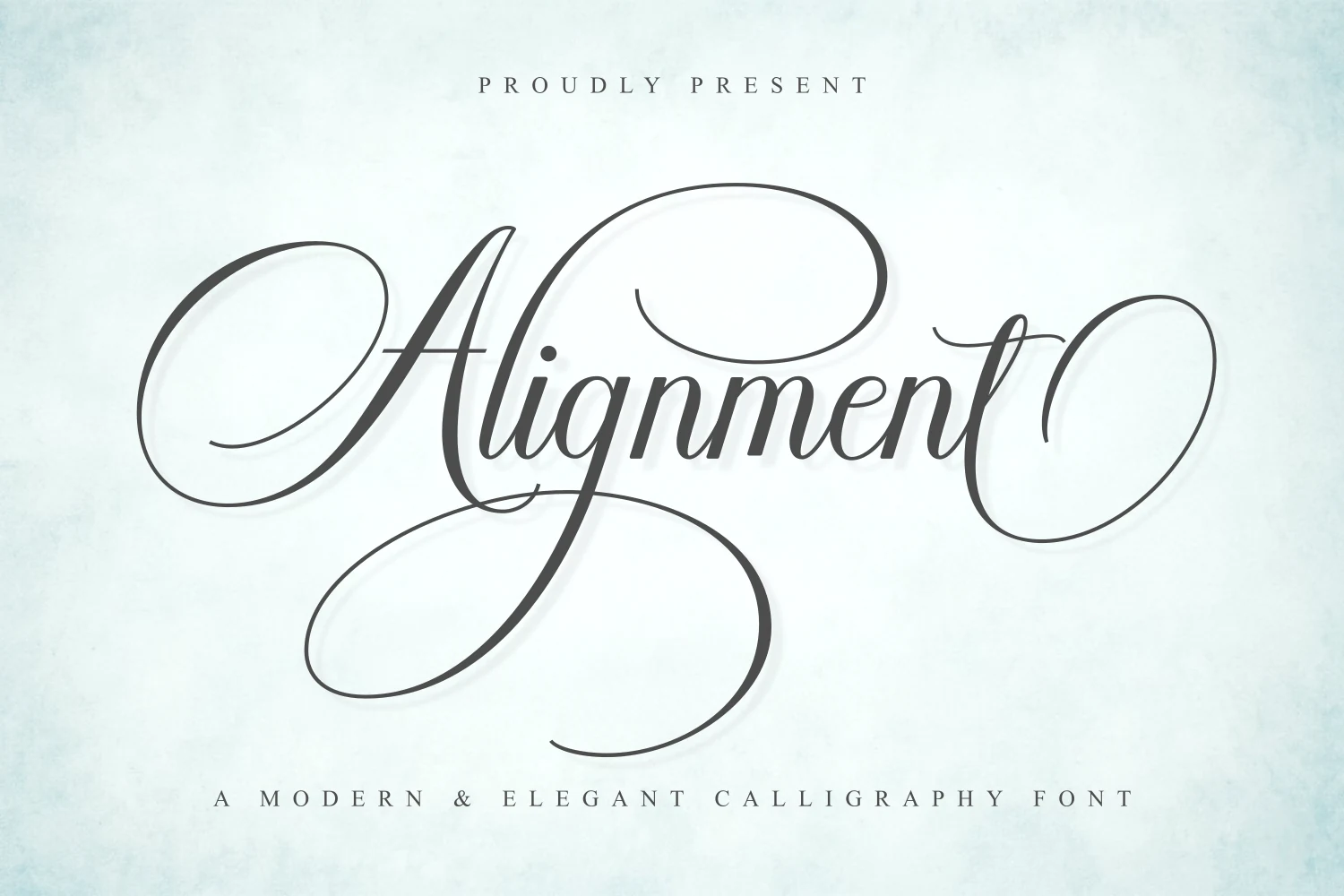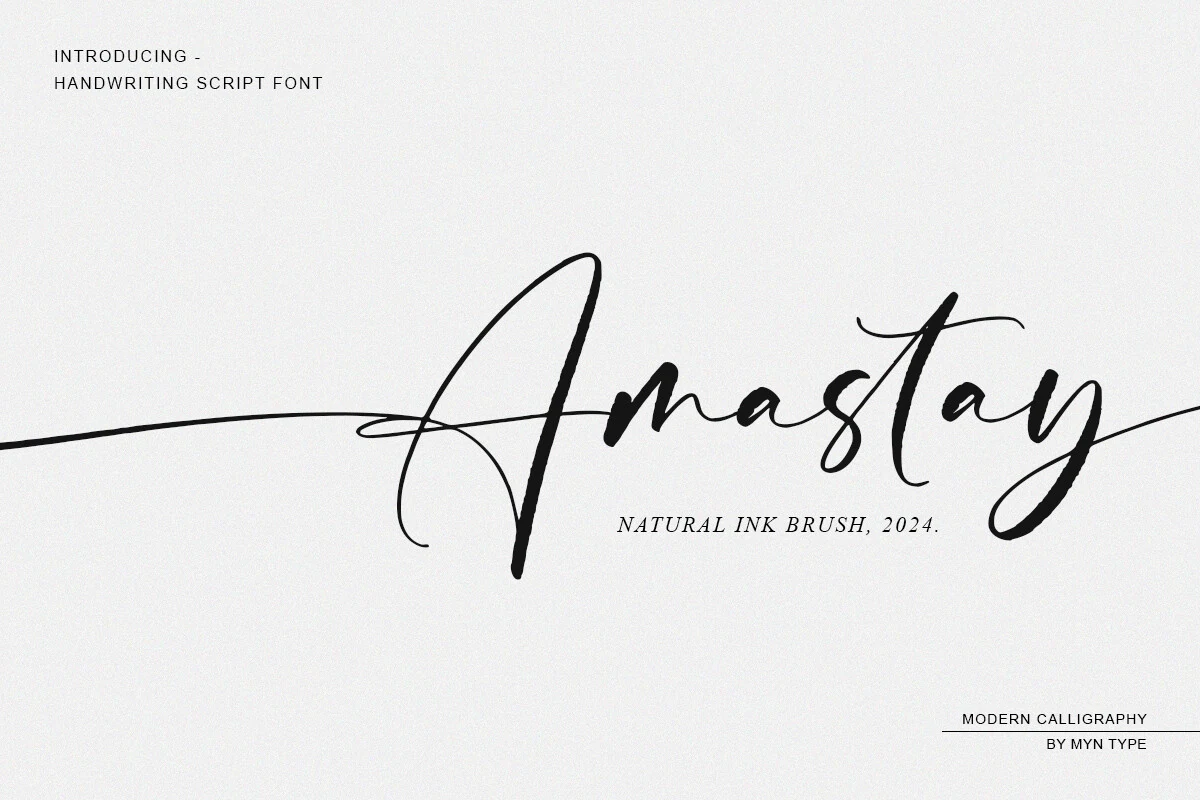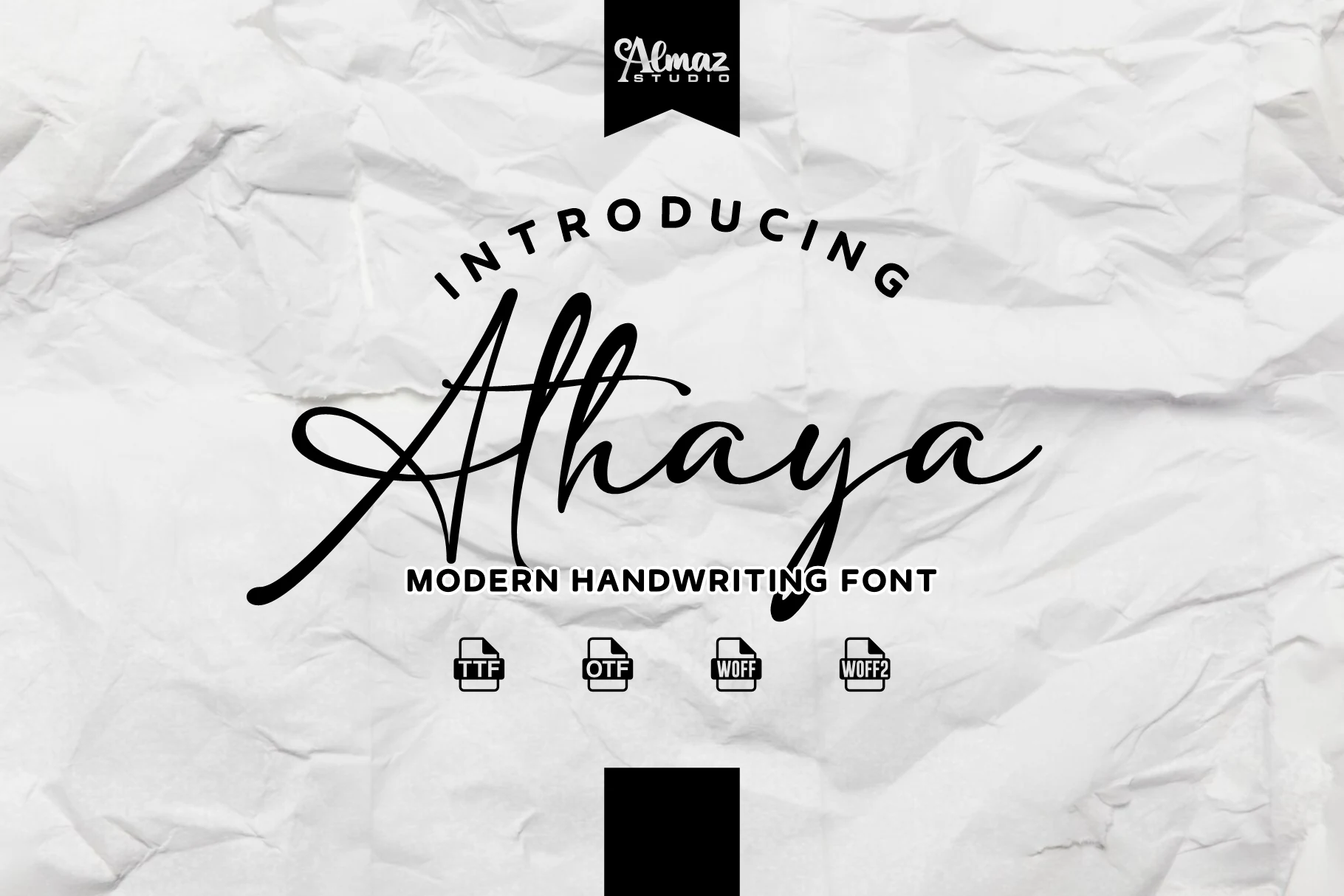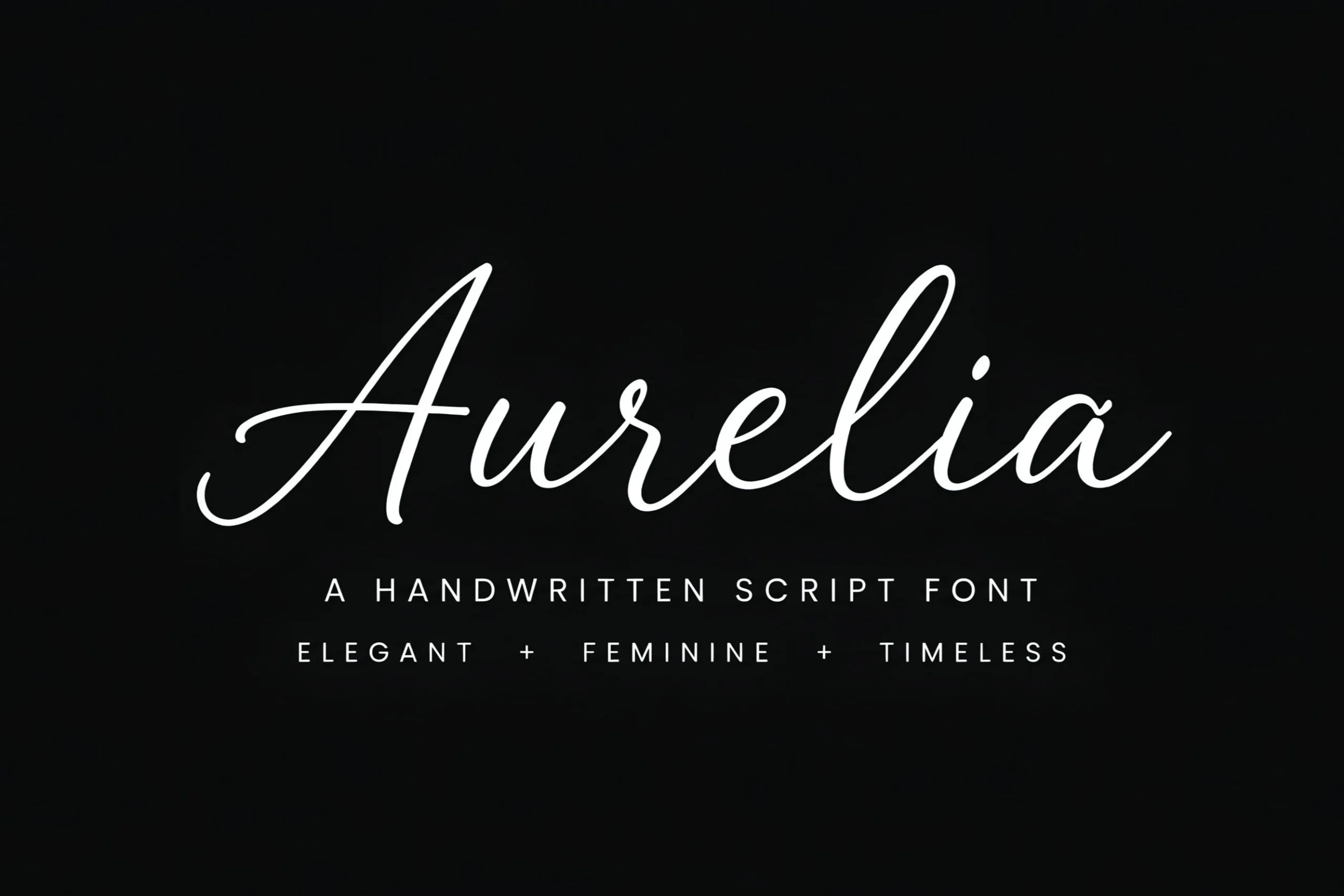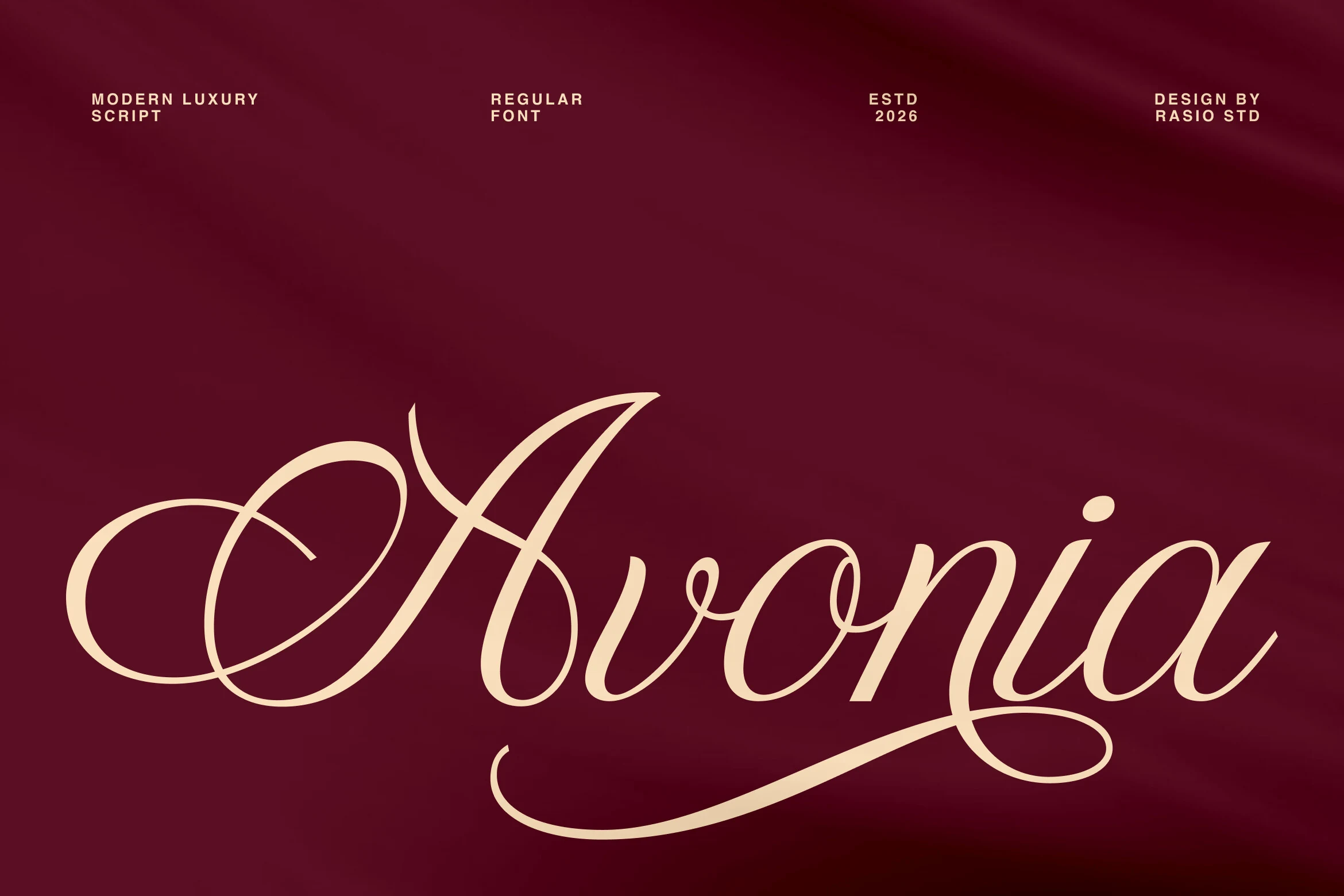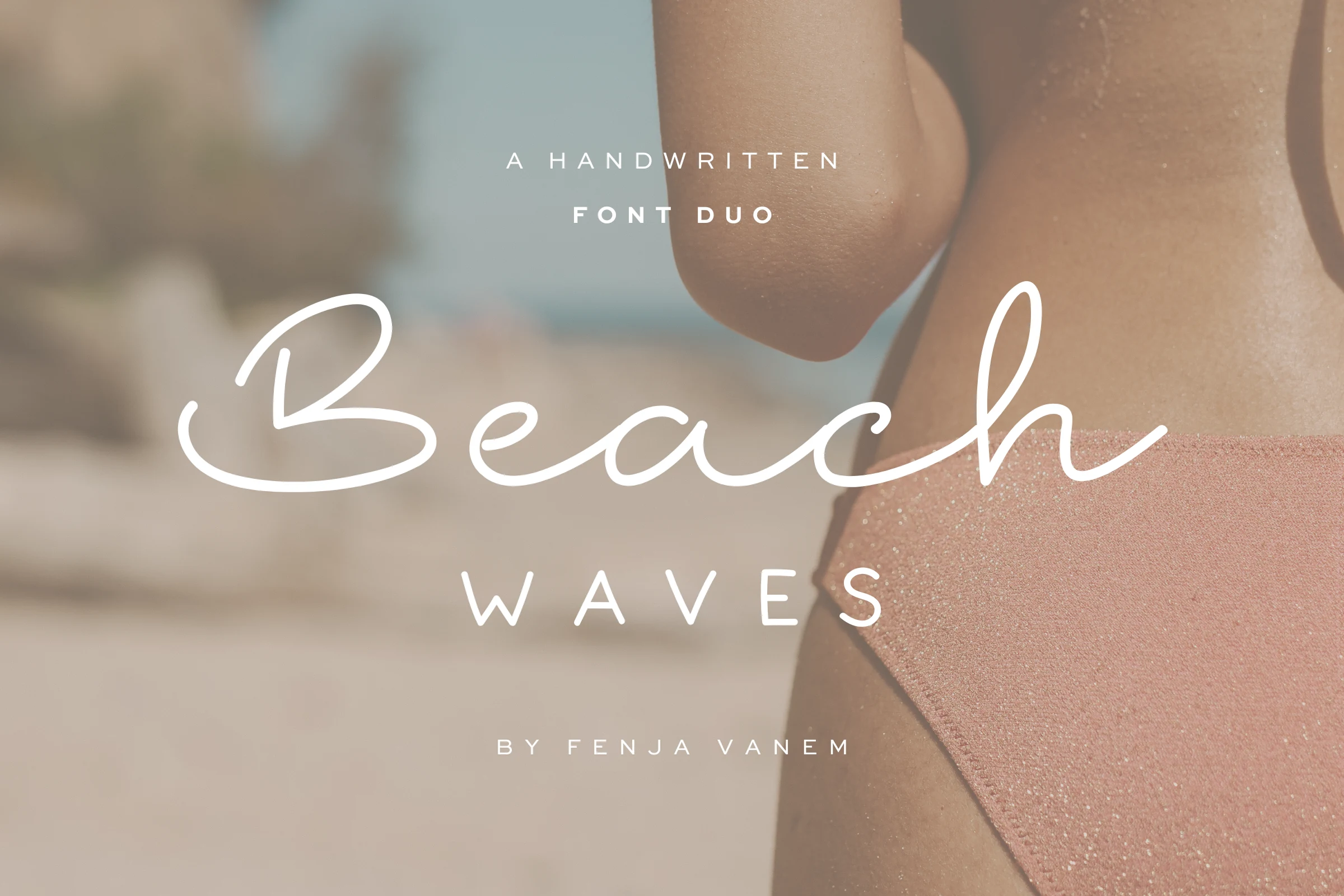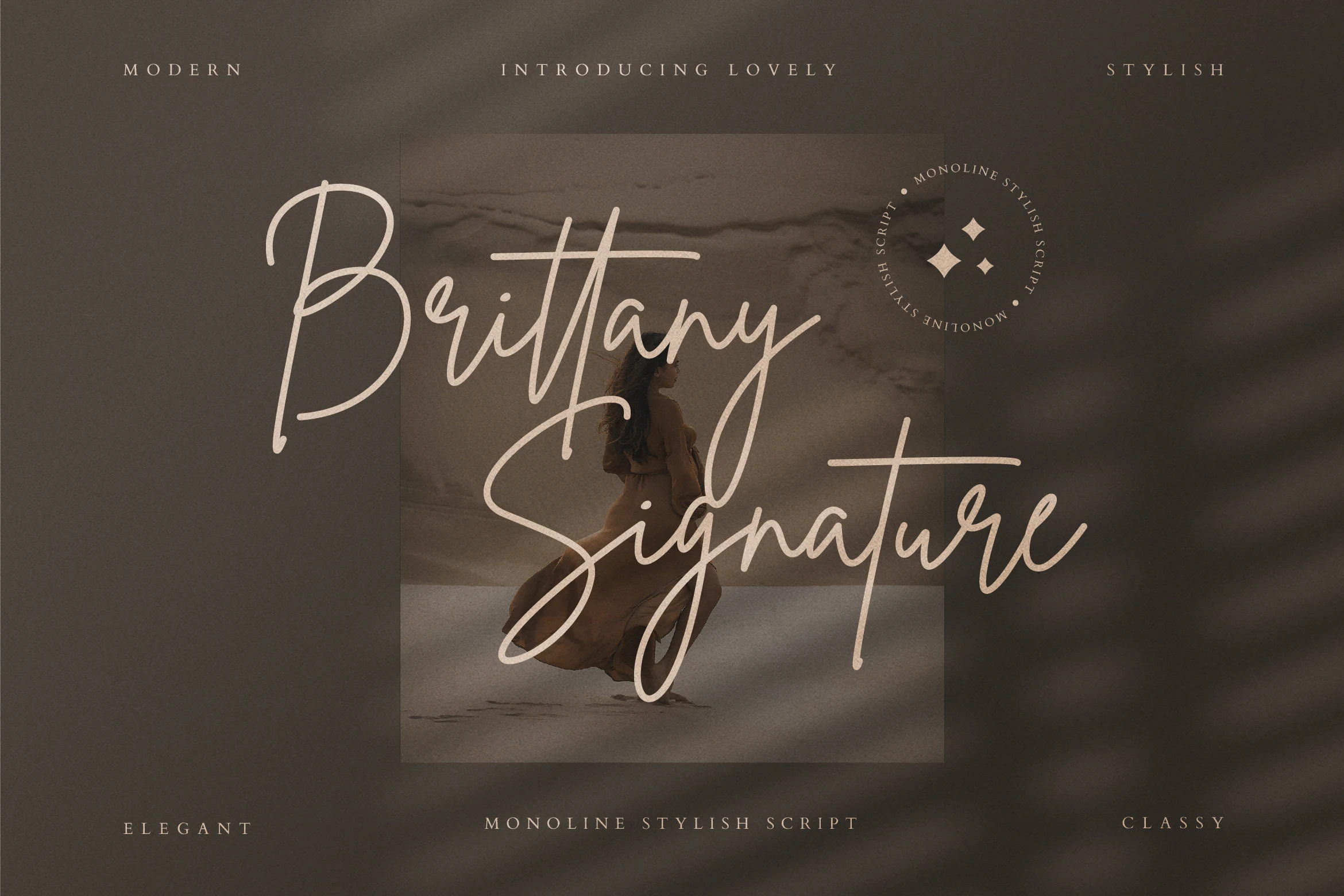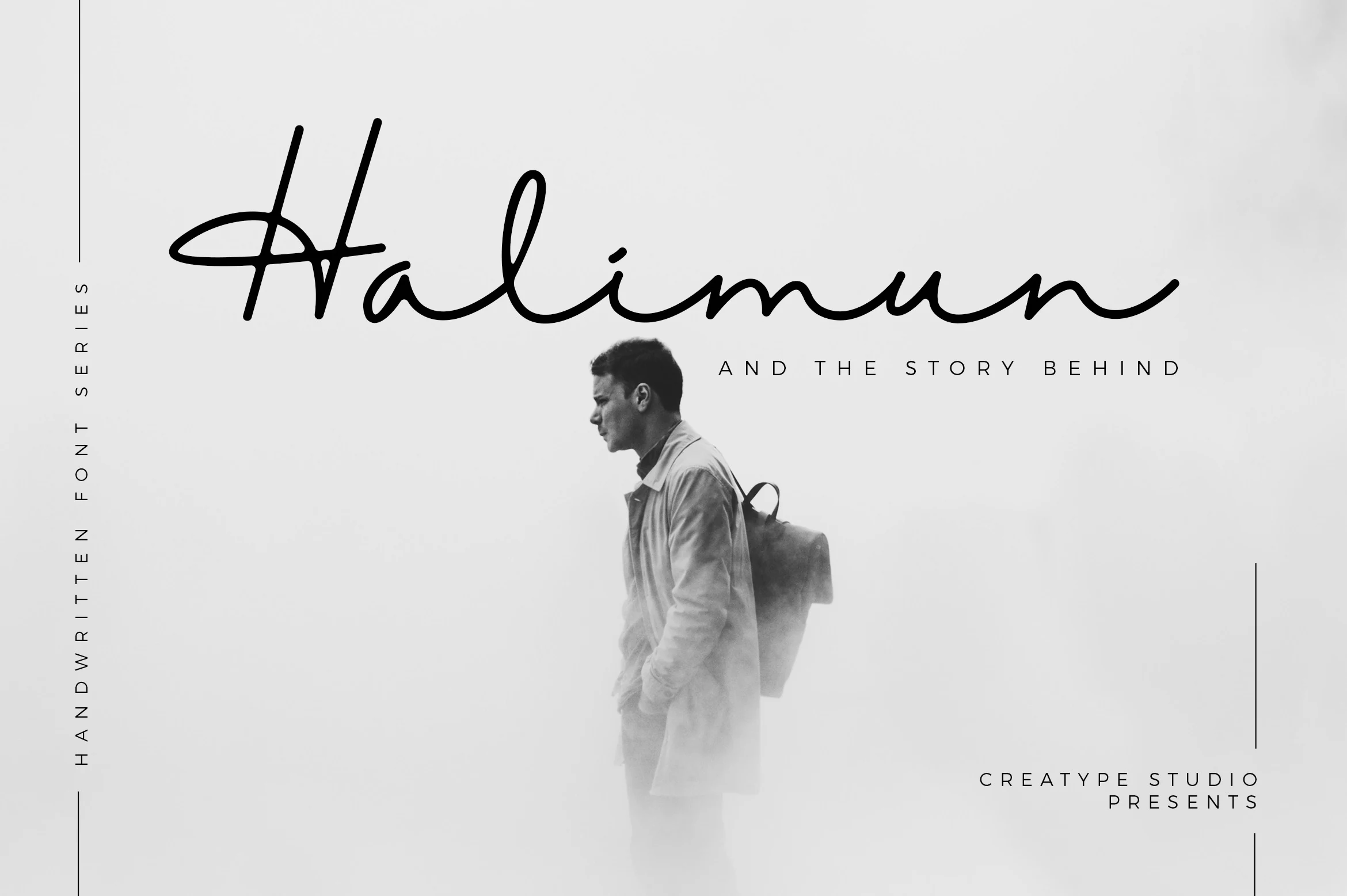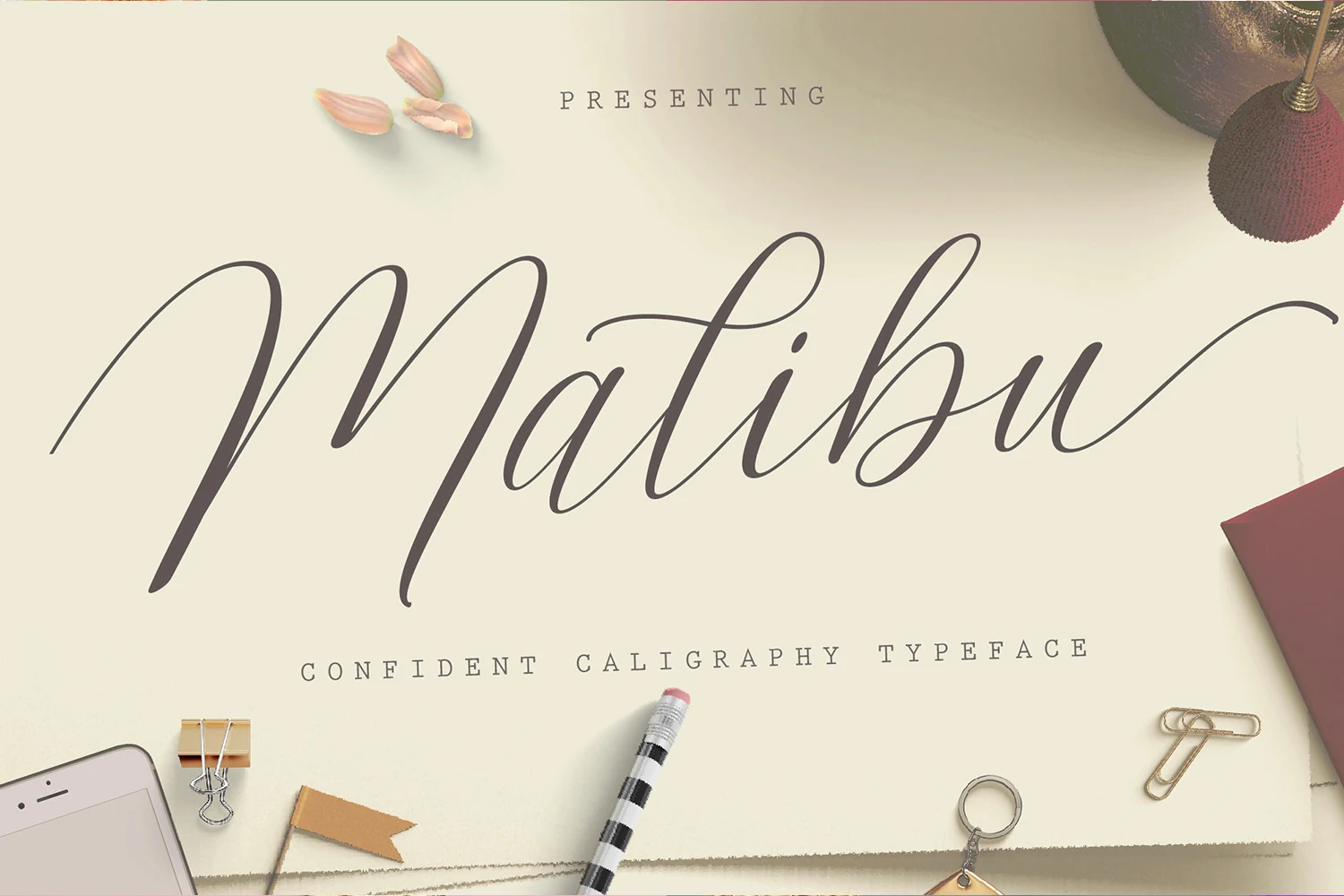
Font previews from 20 Elegant Script Fonts for Stunning Luxury Designs showing elegant script lettering styles for logos, invitations, and branding
20 Elegant Script Fonts for Stunning Luxury Designs
Elegant Script Fonts help designers create polished logos, invitations, packaging, and branding with flowing letterforms and refined movement. This collection is built for anyone choosing graceful script typography for luxury, wedding, fashion, beauty, or editorial projects.
Ornate Calligraphy Elegant Script Fonts
These high-contrast scripts use long swashes, formal curves, and decorative capitals for invitations, wedding titles, luxury logos, and polished editorial layouts.
Mahogany Font
Mahogany Font preview with ivory elegant script lettering, high-contrast strokes, and long flowing swashes
Mahogany Font is built around sweeping calligraphic movement: broad downstrokes, slim hairlines, tight connections, and oversized loops that pull the word across the layout. Its ornate entry and exit swashes give Elegant Script Fonts a more theatrical, formal presence rather than a casual handwritten feel.
The strong contrast works best when the lettering has enough scale for the thin strokes to stay visible. Use it for names, monograms, invitation titles, or premium logo marks, and control the surrounding space carefully so the long flourishes read as part of the composition instead of crowding the text.
Alignment Font
Alignment Font preview with gray elegant calligraphy lettering, oversized swashes, and thin high-contrast strokes
Alignment Font makes an immediate impression with oversized entrance and exit swashes, a graceful slant, and smooth handwritten strokes that keep the lettering light despite its scale. It pushes Elegant Script Fonts toward a more formal, glamorous mood, with looping capitals and elegant contrast that feel polished rather than casual.
Those dramatic flourishes work best when the wording stays short, so names, monograms, and invitation titles have room to breathe. Pair it with restrained serif or spaced sans supporting text and keep surrounding elements simple; that gives the swashes a clear role in the composition instead of letting them compete with everything else.
Gastonia Script Font
Gastonia Script Font preview with elegant black calligraphy lettering, high-contrast strokes, and large looping swashes
Gastonia Script Font leans into classic calligraphy with a dramatic capital G, fine hairlines, and smooth oval curves that keep the wordmark poised and fluid. It gives Elegant Script Fonts a distinctly formal tone, with the sweeping entry stroke and curled terminal adding just enough ornament to feel romantic rather than heavy.
The contrast and decorative swashes make it strongest in short titles, names, and mastheads where the letterforms have room to open up. Pair it with restrained serif or uppercase supporting text, and let the script carry the hierarchy on invitations, packaging, or editorial covers without competing details around it.
Malibu Script Font
Malibu Script Font preview with taupe calligraphy lettering, tall looping ascenders, and smooth flowing strokes
Malibu Script Font balances classic calligraphy with a lighter, modern rhythm. The tall entry stroke on the capital M, narrow oval counters, and long ascenders give the lettering elegant lift, while the smooth joins keep Elegant Script Fonts looking polished instead of overly ornate.
It works especially well for titles, signatures, and invitation lines where the sweeping strokes have room to breathe. Keep the wording short and pair it with a quiet serif or spaced sans for supporting text, so the slim terminals and graceful loops stay clear in the hierarchy.
Handmade Calligraphy Font
Handmade Calligraphy Font preview in black high-contrast script with ornate swashes and looping flourishes
Handmade Calligraphy Font leans fully into ornament, with high-contrast strokes, curling entry swashes, and long looping terminals that turn each word into a statement piece. It fits naturally within Elegant Script Fonts, especially when you want a dramatic, formal look rather than a casual handwritten feel.
The character variations help keep repeated letters from looking rigid, which is useful in logos or invitation titles where custom-looking rhythm matters. Because the capitals and flourishes carry so much movement, it works best in short lines with plenty of breathing room and quiet supporting text.
Gadiani Font
Gadiani Font preview in white elegant calligraphy with sweeping swashes on a black background
Gadiani Font is a polished calligraphy script with strong contrast, slim joins, and generous swashes that stretch above and below the baseline. The capital G and long finishing strokes give it a formal, decorative rhythm, placing it comfortably among Elegant Script Fonts for projects that need a refined signature look.
Conclusion
For formal wedding or luxury work, start with ornate calligraphy styles. For fashion, beauty, and personal branding, use signature scripts. For clearer everyday layouts, choose clean modern options, and use bold brush scripts when the design needs stronger movement.Font previews from 20 Elegant Script Fonts for Stunning Luxury Designs showing elegant script lettering styles for logos, invitations, and branding